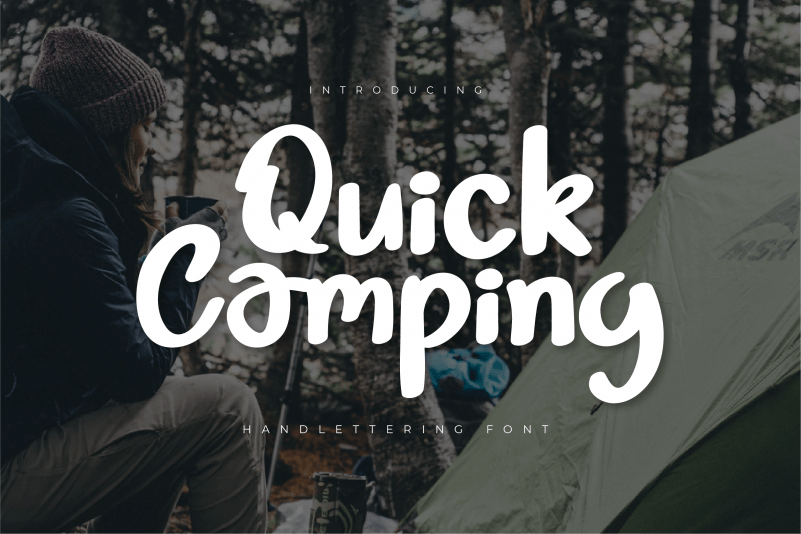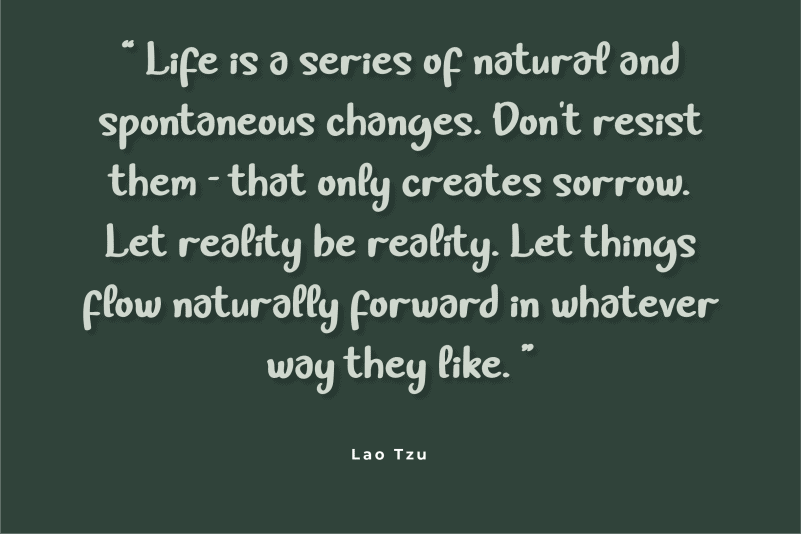
Quick Camping Script Font
Quick Camping Script Font is a flowing handwritten font, described by an elegant touch, perfect for your favorite projects. Fall in love with its incredibly distinct and timeless style and use it to create spectacular designs!